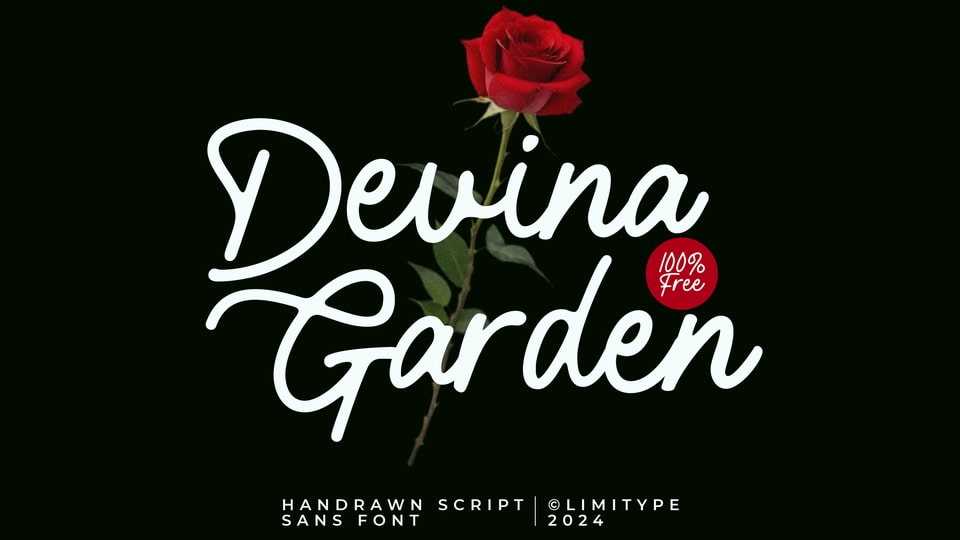
Download Devina Garden font, a sans script typeface made with a modern handwriting style, this font is equipped with uppercase, lowercase, symbols, multi-language and alternates.